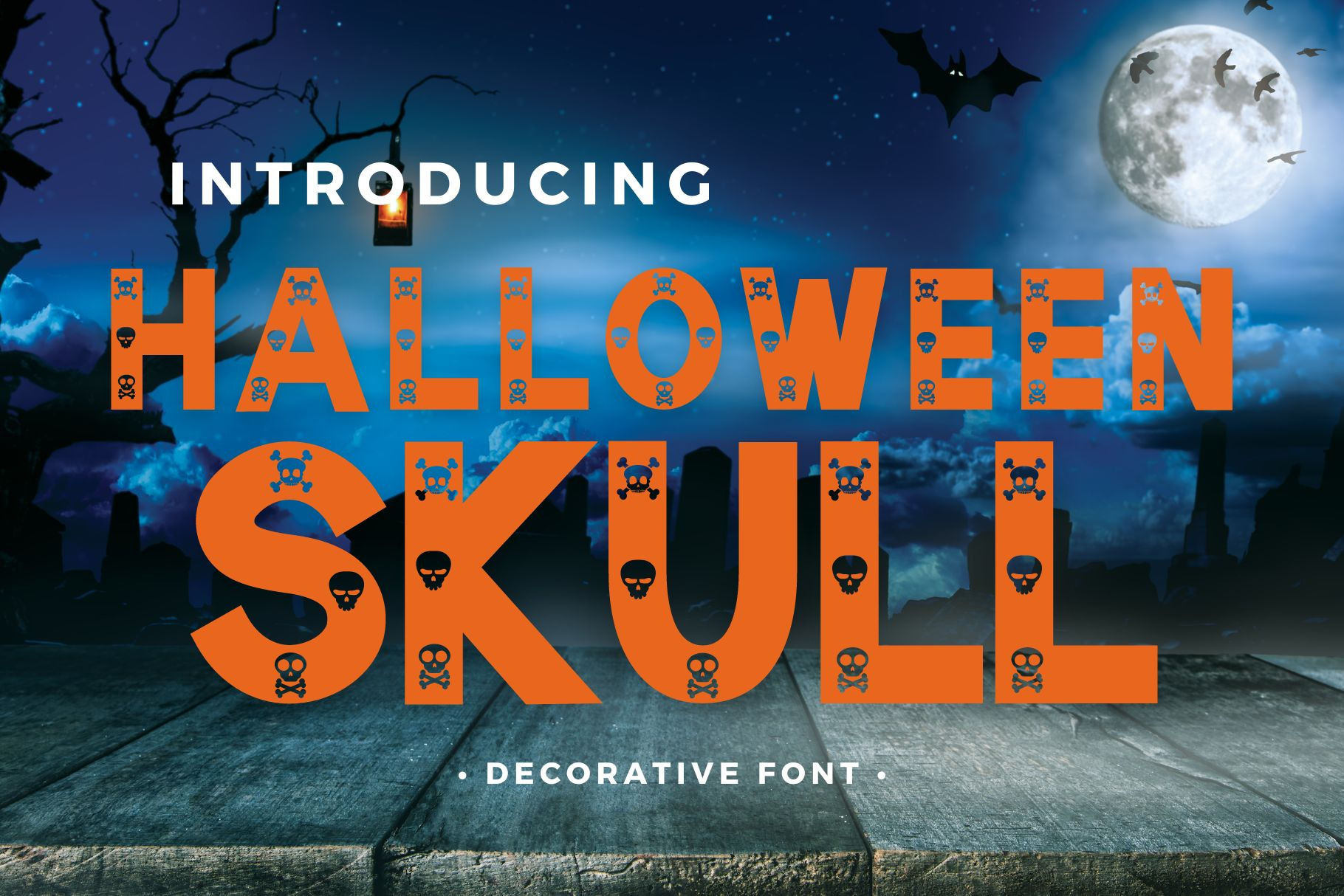
Halloween skull - Decorative font
Halloween Skull is a fun and unique decorative font. This quirky Halloween font makes it the perfect choice for various projects, such as blog posts, logos, branding, ads, invitations, greeting cards, planners, photo albums, decorations, and much more. Add it to any of your designs, and enjoy the results!